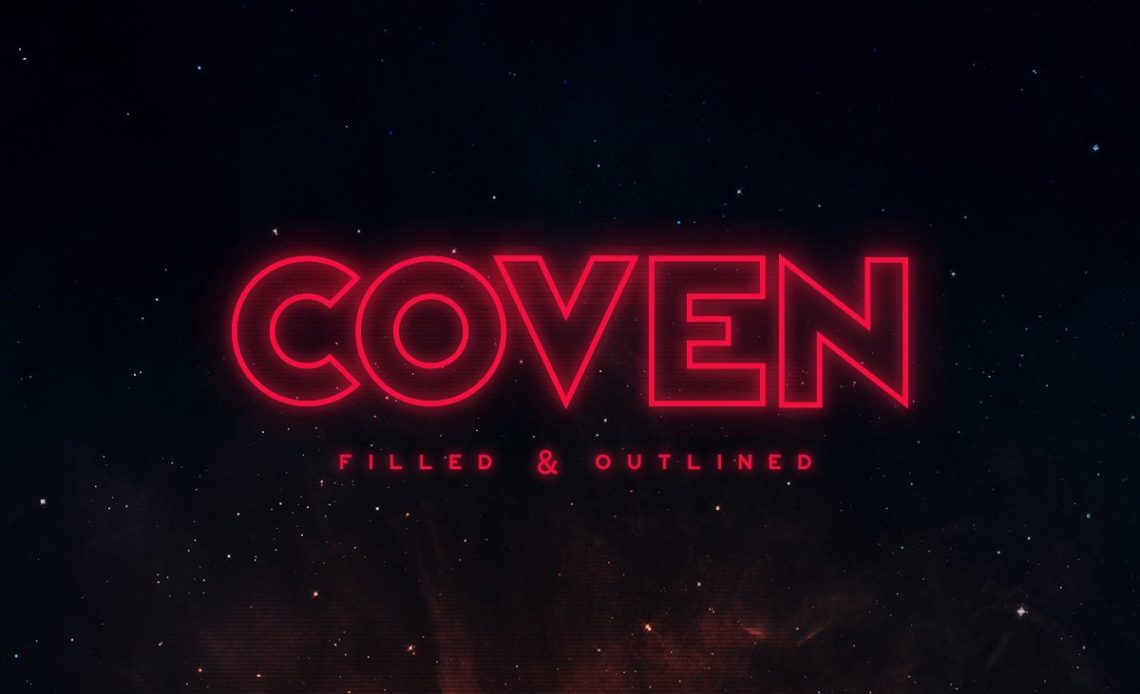
Introducing Coven Typeface, the font collection that will ignite your creativity and leave a lasting impression! Developed by the talented Mehmet Tugcu, Coven Typeface is the ultimate choice for those seeking bold and sharp display fonts. With its unique filled and outline styles, this collection offers endless possibilities for your design projects.
What sets Coven Typeface apart is its attention to detail. The outlined version features specially designed letters like A and E, tailored to perfectly fit the outline format. And let's not forget the captivating alternate version of the letter S, which can be easily toggled with the simple press of caps lock. These thoughtful nuances ensure that your designs stand out from the crowd and leave a lasting impression on your audience.
Versatility is the name of the game with Coven Typeface. Its uppercase multilingual letters, numbers, and punctuation open up a world of possibilities for designers across various industries. Whether you're working on a branding project, creating eye-catching advertisements, or designing striking social media graphics, Coven Typeface has got you covered.
But it's not just about the functionality – Coven Typeface also evokes a wide range of emotions with its bold and sharp aesthetic. From commanding attention to exuding confidence, these fonts will captivate your audience and leave a lasting impact. Let your designs speak volumes with the power of Coven Typeface.